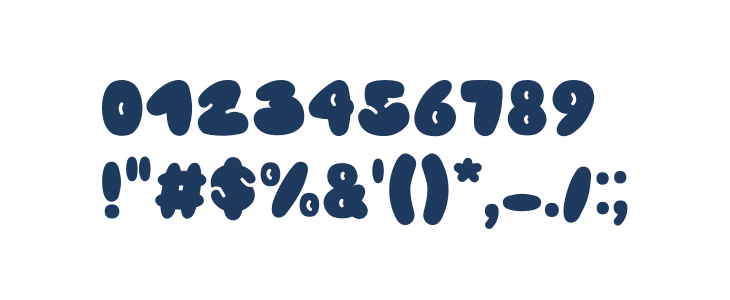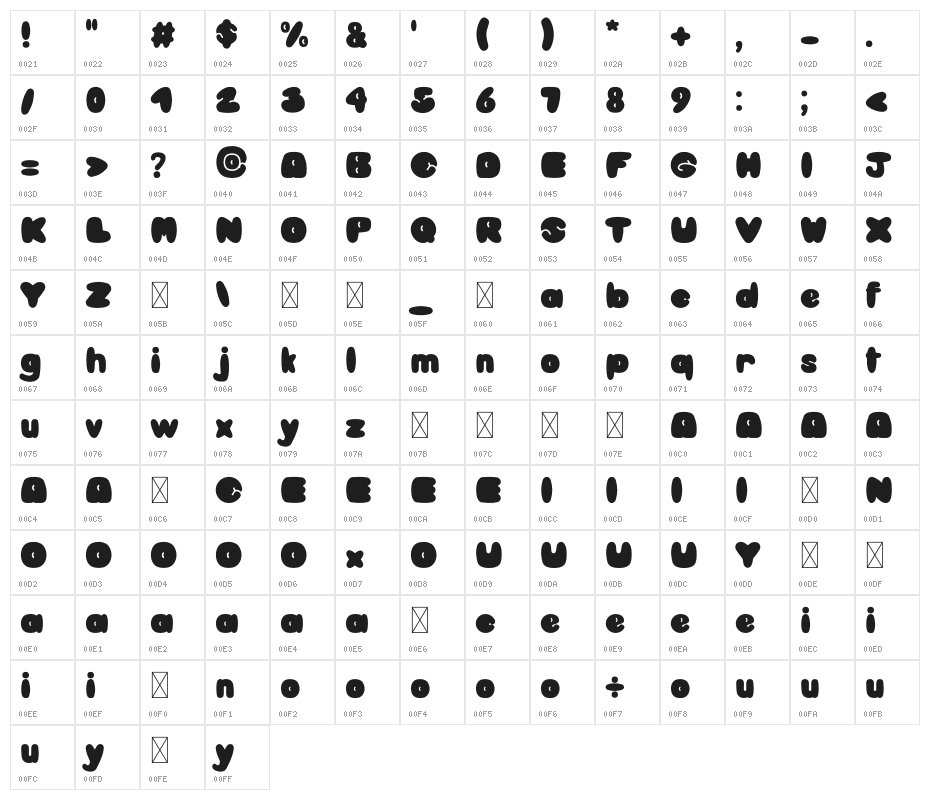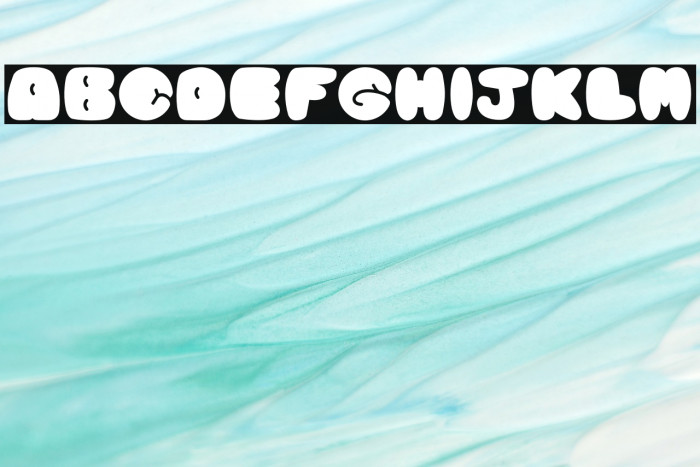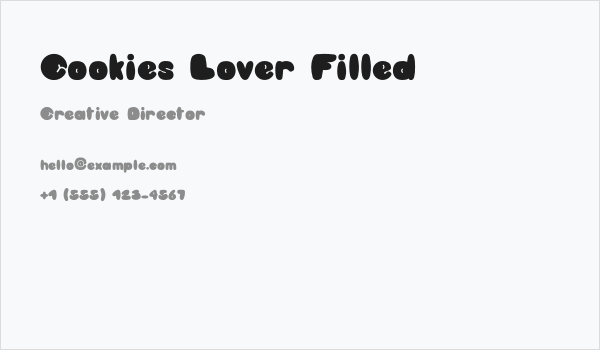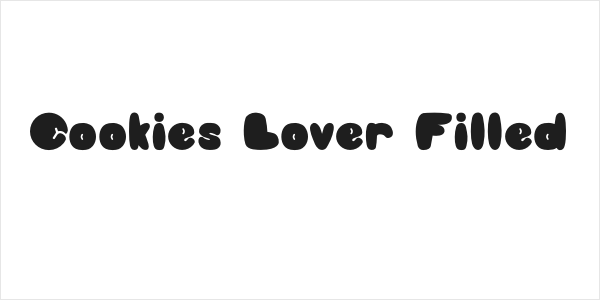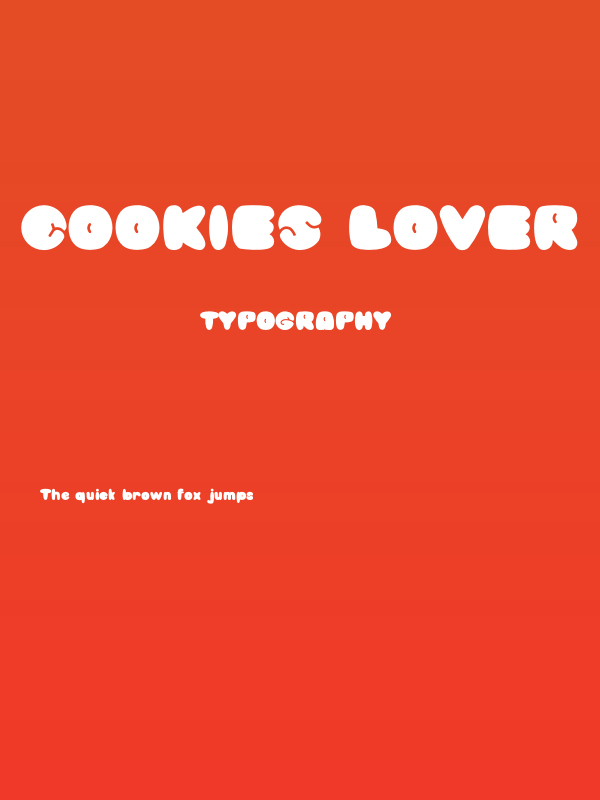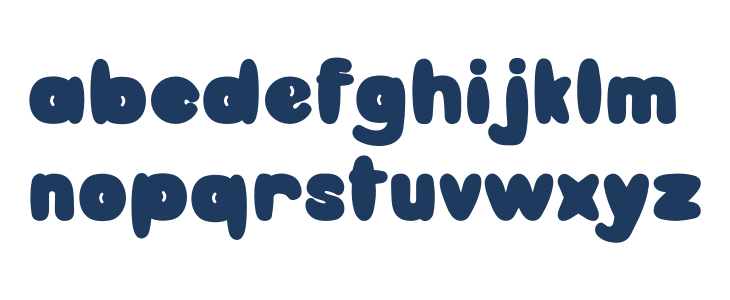
Cookies Lover Filled Font
Cookies Lover Filled Description
This font features a playful and bold design, characterized by its rounded and bubbly letterforms. Each character is filled, giving a sense of fullness and weight, while maintaining a whimsical and fun aesthetic. The letters have a consistent thickness, contributing to a cohesive look across both uppercase and lowercase alphabets. The numbers and special characters follow the same style, ensuring uniformity throughout. This font's unique style makes it stand out, ideal for projects that require a touch of creativity and playfulness.
Overall StylePlayful, Whimsical
Proposed ProjectsIdeal for children's books, playful branding, party invitations, and creative posters.